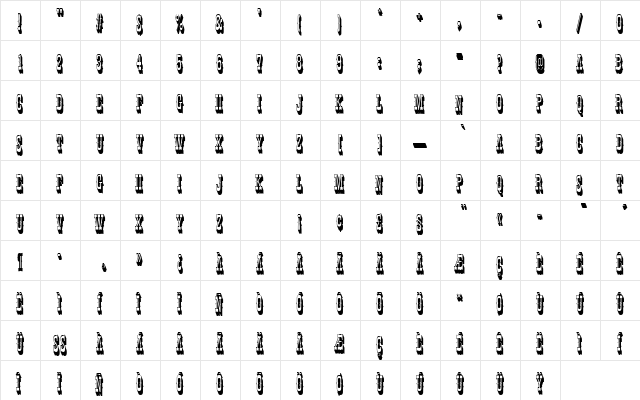
ThunderbirdDExtConSh1 Regular Font Preview
ThunderbirdDExtConSh1 Regular
ThunderbirdDExtConSh1 Regular Font Details
Design Context for ThunderbirdDExtConSh1 Typeface
ThunderbirdDExtConSh1 is a composed and adaptable typeface that performs quietly and consistently across a wide range of design contexts.